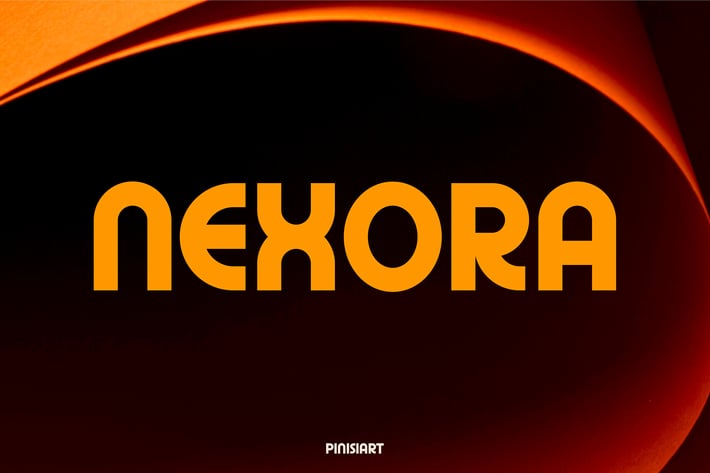
Modern Robotic Font - Nexora
NEXORA – Modern Font
Built with vision and velocity, NEXORA is a modern geometric display font made for digital spaces and bold tech brands. With its wide curves, semi-extended forms, and confident verticality, NEXORA feels right at home in futuristic UIs, sci-fi posters, and startup branding kits. It combines retro-futuristic soul with sharp modern lines, making it ideal for brands that aim to lead — not follow. Whether used in space-themed visuals or gadget packaging, NEXORA delivers big presence with clean construction.
When you want your brand to look future-ready and unmissably bold, NEXORA gets the job done. Its tone lands somewhere between optimism and innovation — perfect for space tech, robotics, digital apps, construction-tech, and bold music launches. Designers working on brand identities, UI/UX titles, or futuristic campaigns will find NEXORA to be a powerhouse headline font.
Need a font that feels confident without looking over-engineered? NEXORA walks the line between creative energy and professional clarity.